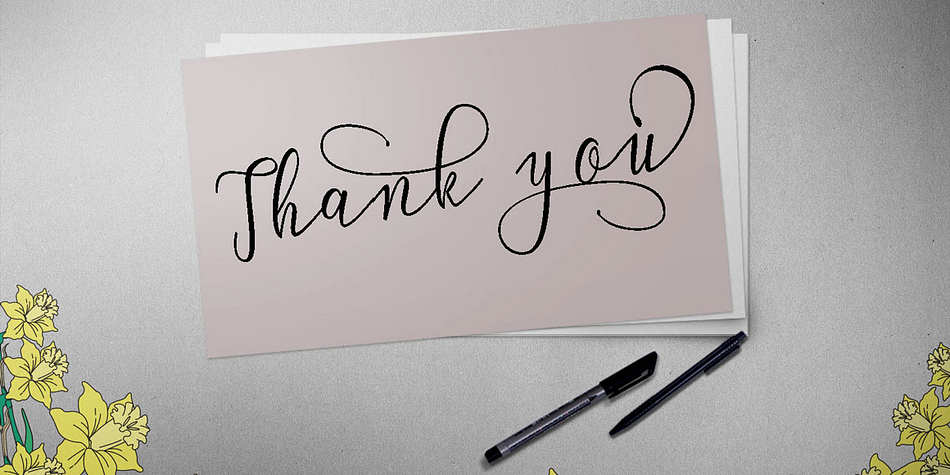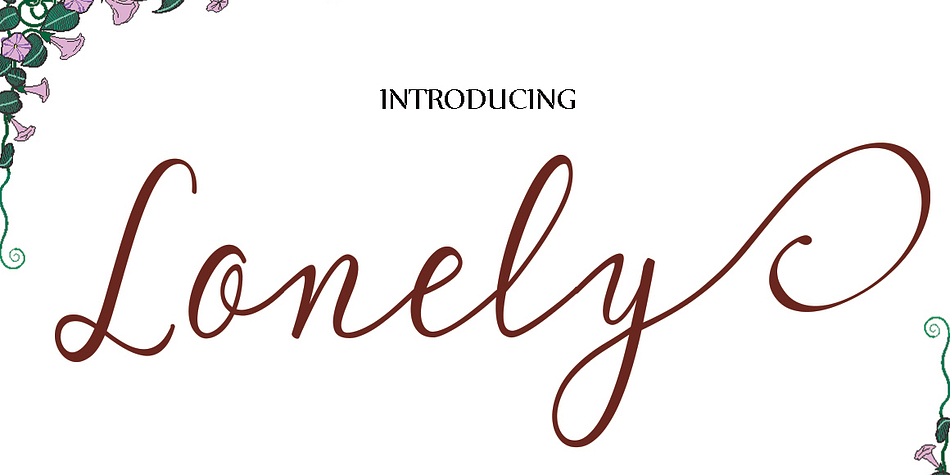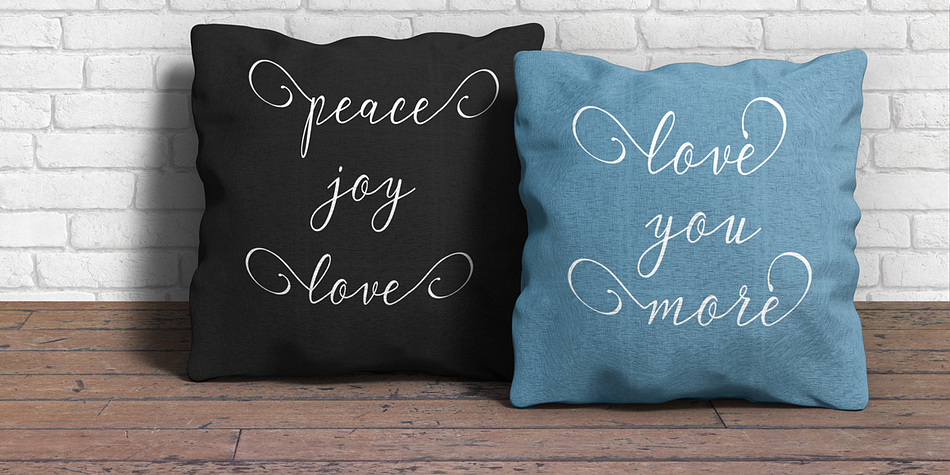
Lonely is a script and modern calligraphy font published by pollem.Co.
Lonely is a modern calligraphy font. It was designed based on handwriting. Lonely follows the modern and unique forms of calligraphy with a very natural writing style.
Lonely can be used for various purposes such as headings, logos, wedding invitations, t-shirt design, letterheads, signage, lables, news, posters, badges etc. To enable the OpenType Stylistic alternates, you need a program that supports OpenType features such as Adobe Illustrator CS, Adobe Indesign & CorelDraw X6-X7.